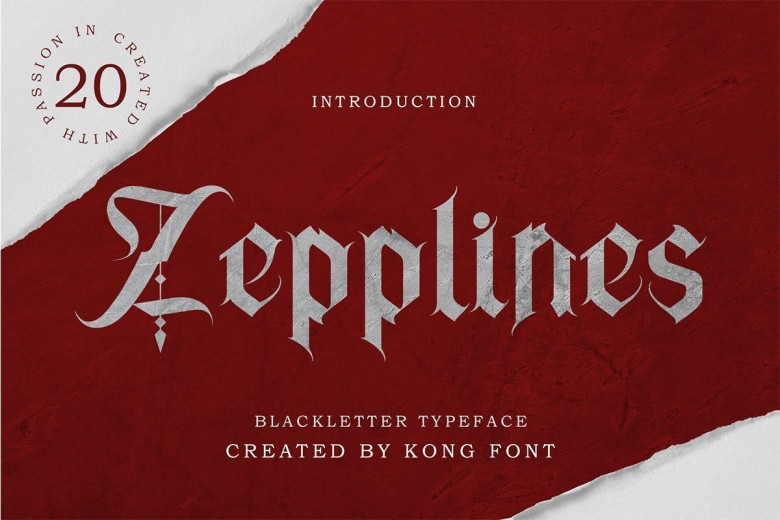
Zepplines Blackletter Typeface
Zepplines Blackletter Typeface is a gothic blackletter display font, Zepplines works particularly well in logotypes, or as a display font in editorial designs and websites. The set of matching ornaments is perfect to add a touch of elegance to any design, and you can use it to achieve eye-catching social media and promotional images.